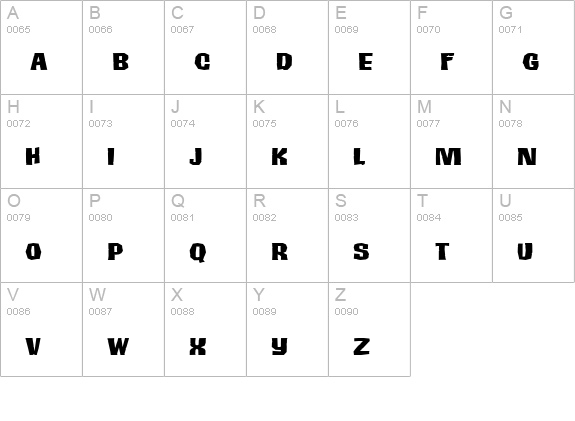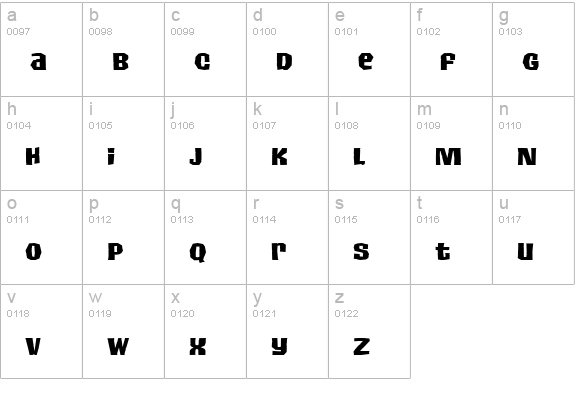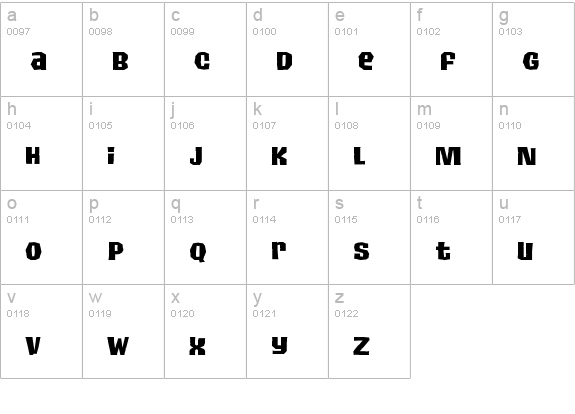
Introducing Survivor Font, a rugged and versatile typeface inspired by the spirit of survival and resilience. This unique font features bold, distressed letterforms that exude strength and determination. Perfect for adding a touch of adventure to your designs, Survivor Font is ideal for logos, posters, apparel, and more. Best of all, Survivor Font is available for free download at FontsMarket.com. Don't miss out on this incredible opportunity to enhance your projects with this powerful and dynamic font. Embrace the wilderness and unleash your creativity with Survivor Font today!